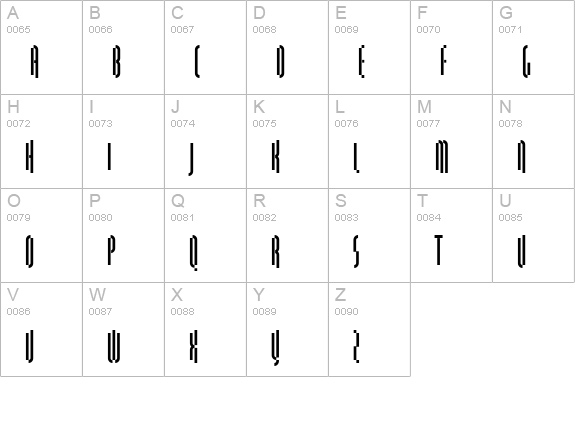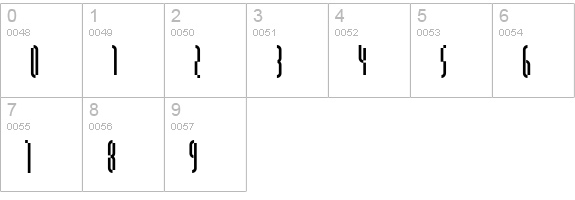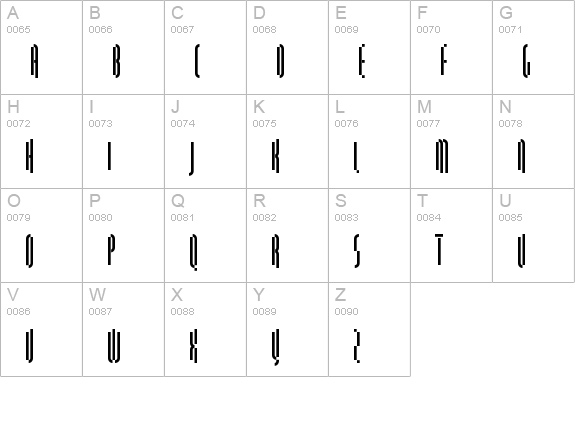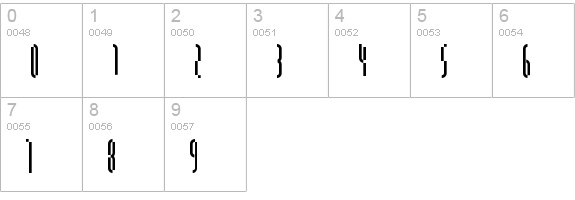
QuasariaLL-Regular Font Details
QuasariaLL-Regular is the standard, neutral variant in the QuasariaLL typeface family \xE2\x80\x94 well suited to general body text, paragraphs, and standard typographic work.
QuasariaLL-Regular is a striking and eye-catching font that will captivate any reader with its unique and sophisticated design. This font is perfect for adding a touch of elegance and modernity to any project, whether it be a logo, website, or printed materials. With its clean and crisp lines, QuasariaLL-Regular exudes a sense of professionalism and refinement. Each letter is meticulously crafted to ensure maximum readability, making it a versatile choice for both large and small-scale designs. The bold strokes and subtle curves of this font create a harmonious balance, making it visually pleasing and attention-grabbing. One of the most appealing aspects of QuasariaLL-Regular is that it is available for free download at FontsMarket.com. This means that you can easily access and utilize this font in your creative endeavors without any cost. FontsMarket.com provides a reliable and user-friendly platform where you can browse and download a wide range of fonts, including QuasariaLL-Regular. Whether you are a professional designer looking to add a touch of elegance to your projects or an individual seeking a high-quality font for personal use, QuasariaLL-Regular is the perfect choice. Its versatility, readability, and freely available nature make it a top-notch font that will elevate any design to new heights. Embrace the beauty of QuasariaLL-Regular and let your creativity soar.